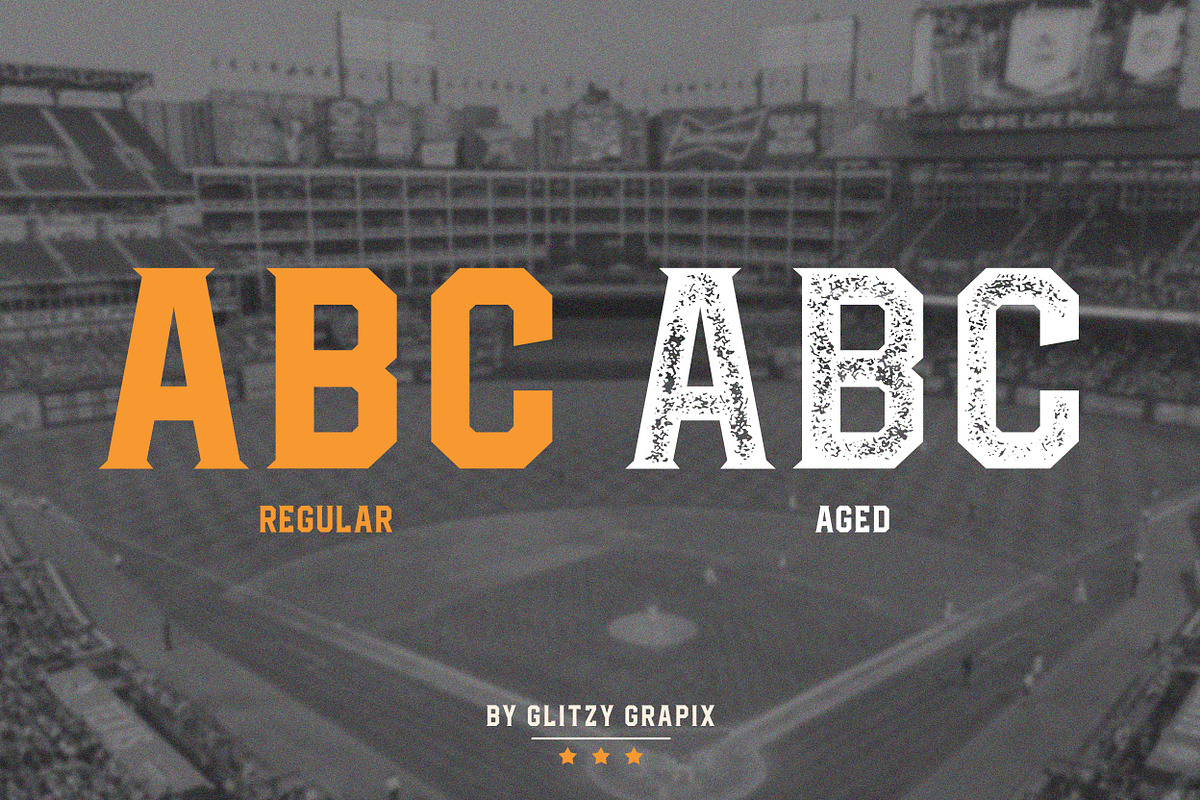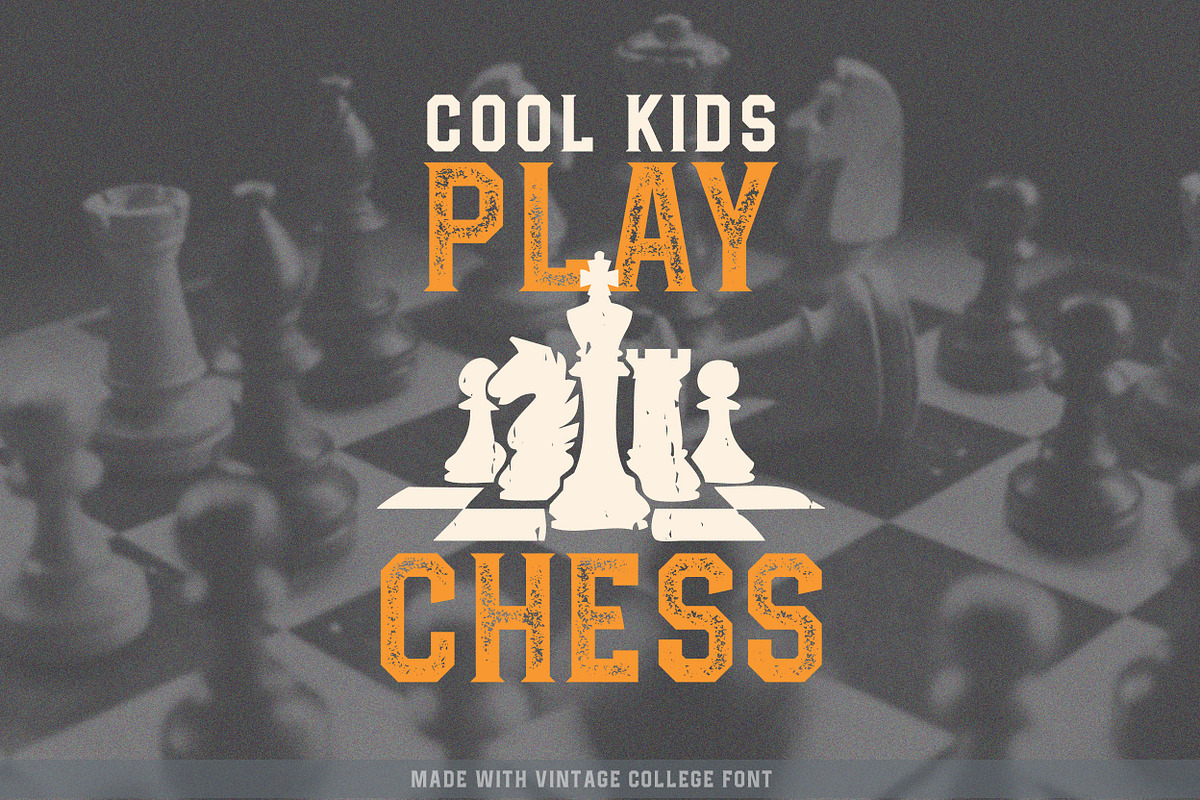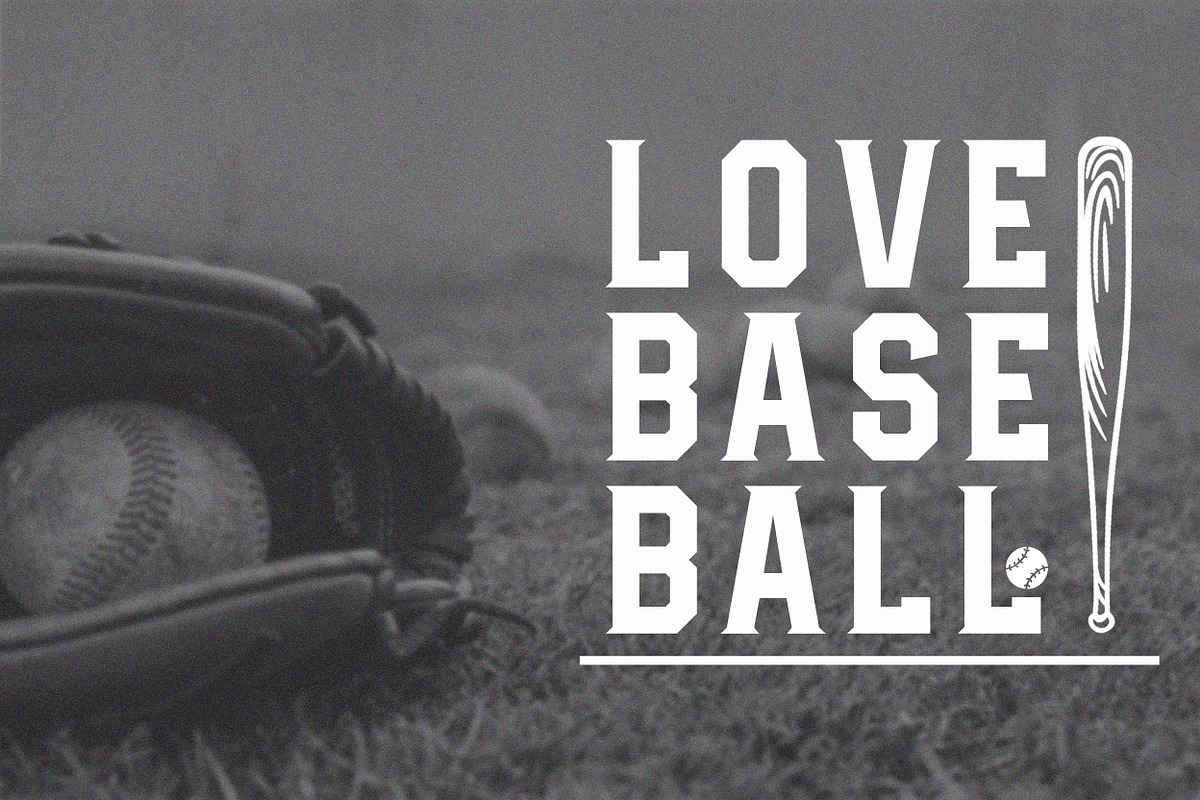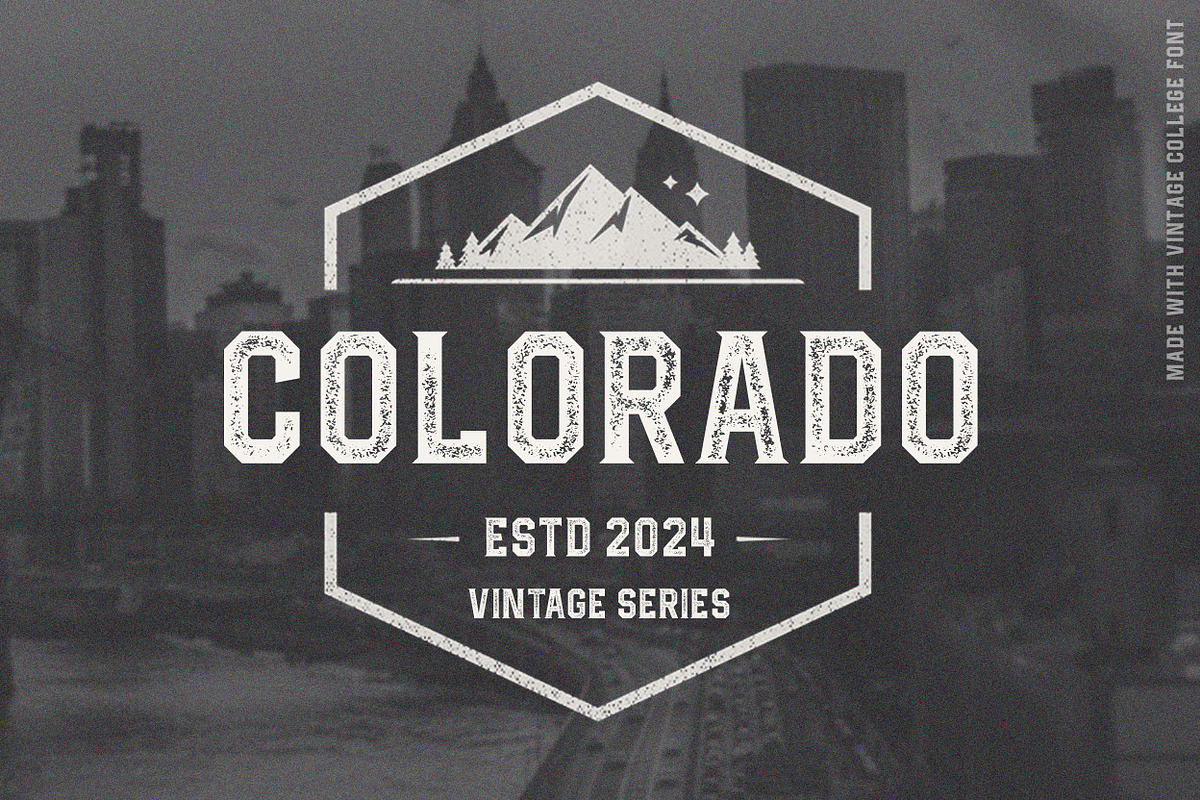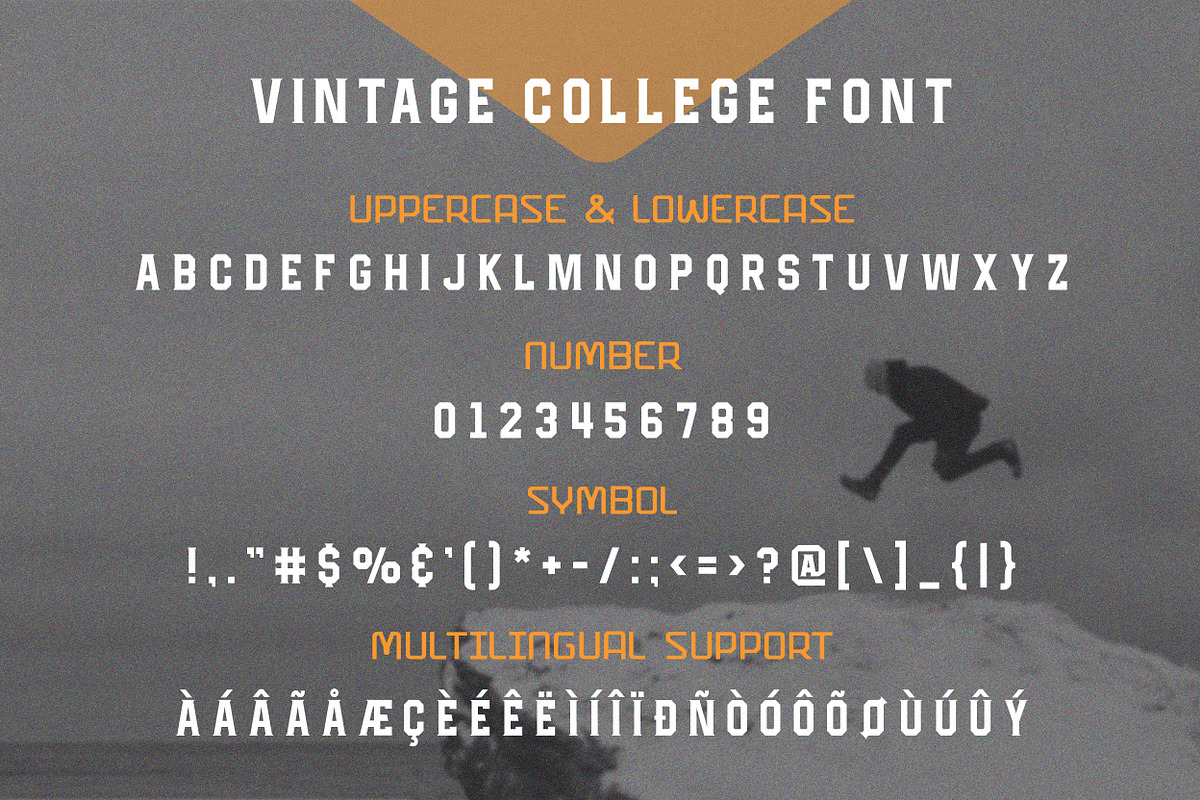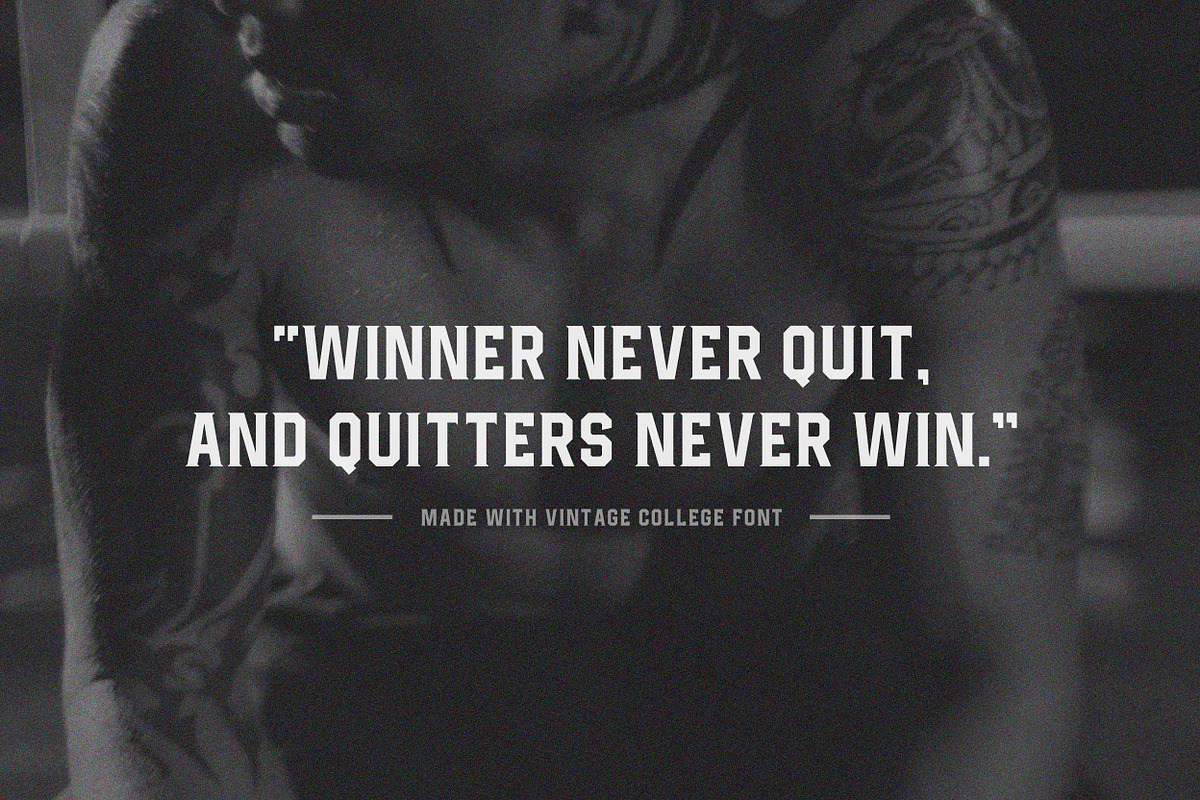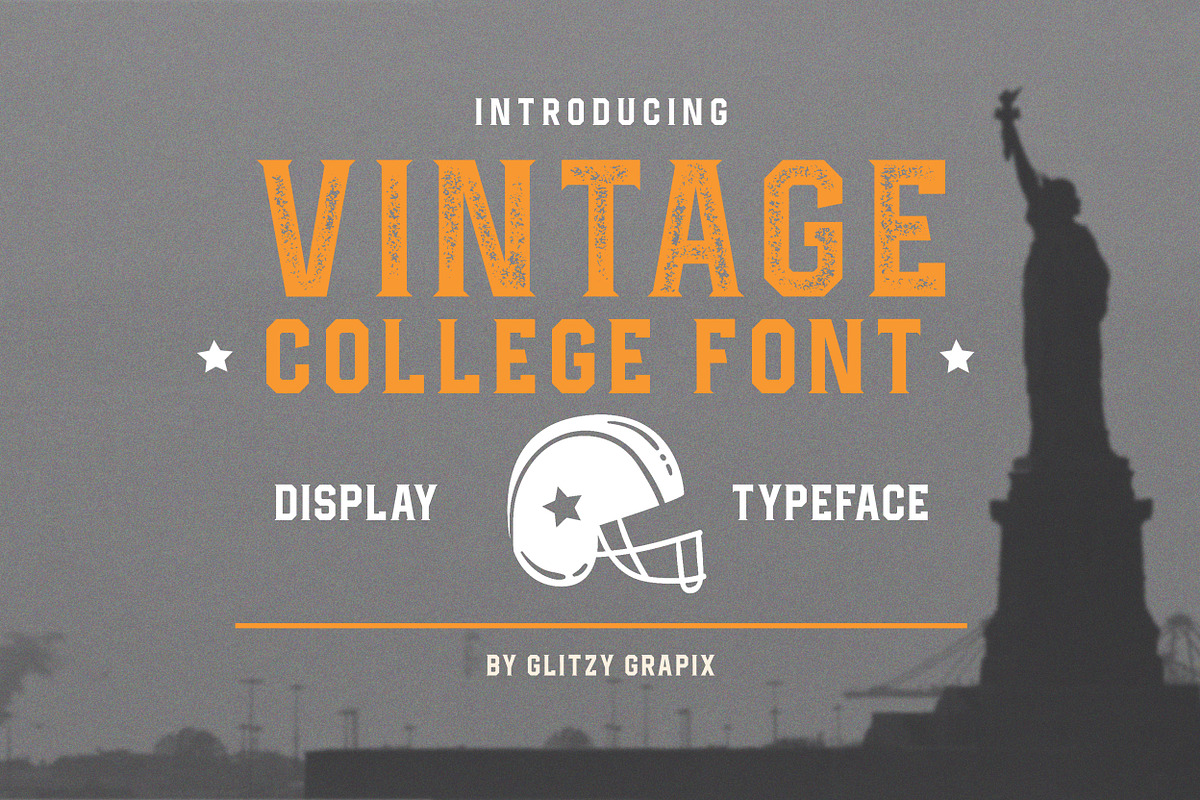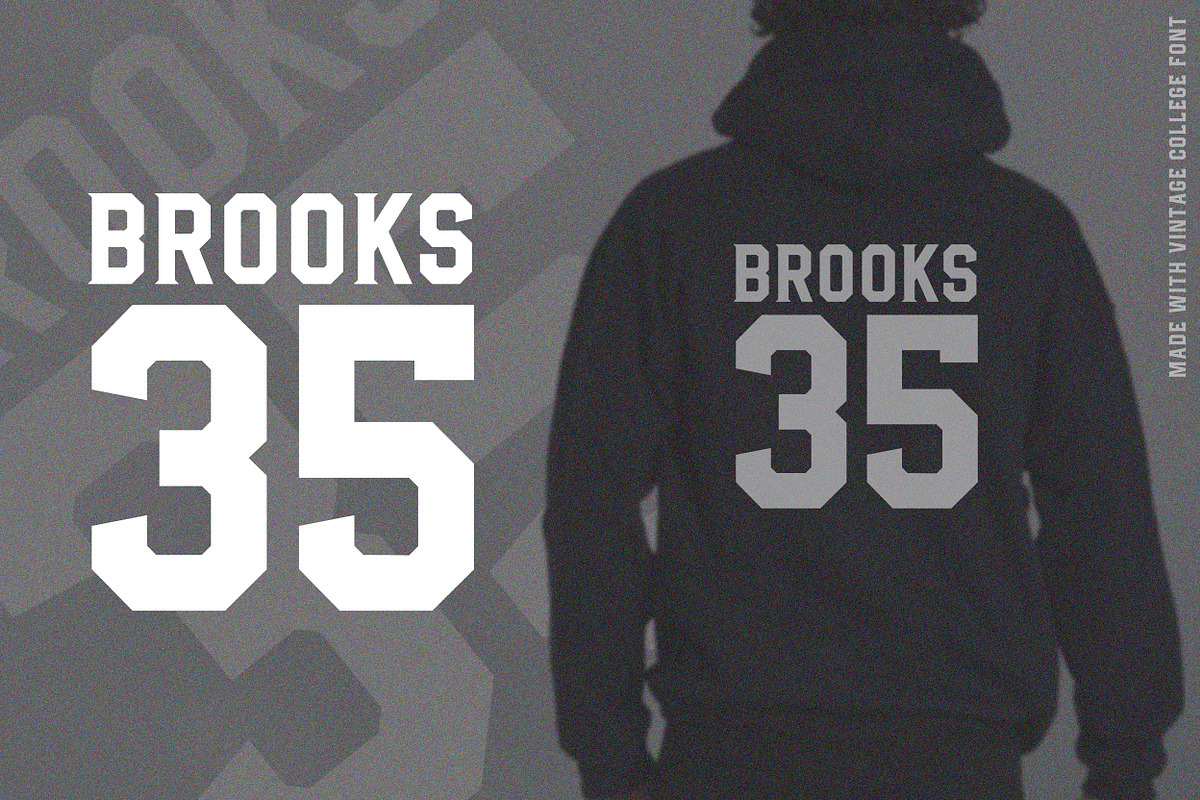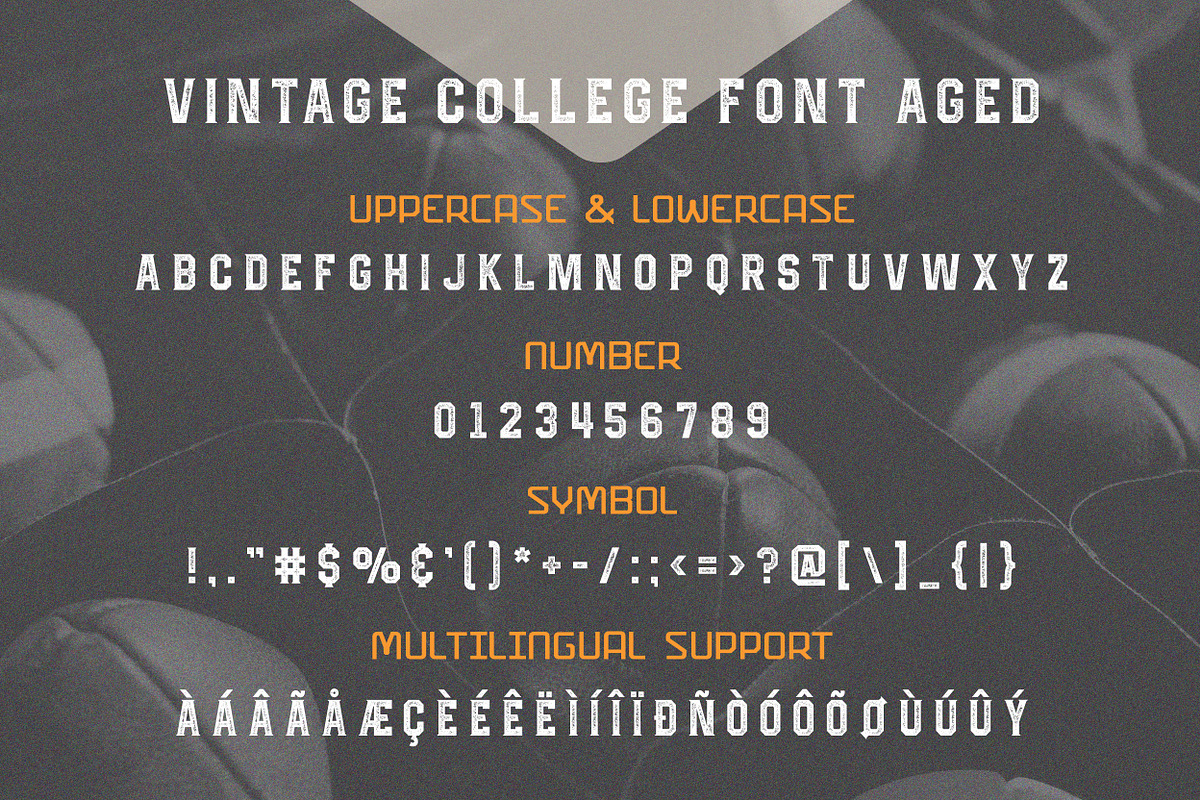
Vintage College Font
Vintage College Font is a timeless font inspired by the golden era of collegiate sports. Perfect for evoking a sense of nostalgia, this font captures the essence of traditional college athletics while offering a versatile and modern twist. With both regular and aged variants included, you can choose the perfect style to suit your project's needs.
1. Classic Collegiate Style: Vintage College Font embodies the iconic look of college or varsity fonts, making it ideal for sports-themed designs, apparel, quotes, posters, and more.
2. Regular and Aged Variants: This font package includes both regular and aged versions, allowing you to achieve the desired level of vintage distressing for your designs.
3. Complete Character Set: Vintage College Font includes all capital letters, numbers, and a selection of symbols, ensuring versatility for various design applications.
4. Multilingual Support: With support for multiple languages, including English, French, Spanish, German, and more, this font is accessible to a global audience, making it suitable for diverse projects.
5. Authentic Detailing: Each character is meticulously crafted to capture the authentic feel of vintage college typography, providing an immersive experience for your audience.
Whether you're creating branding materials for a sports team, designing vintage-inspired merchandise, or adding a retro flair to your projects, Vintage College Font is the perfect choice to bring your ideas to life. Embrace the spirit of classic collegiate style with this versatile and nostalgic font. Buy now and unleash your creativity!